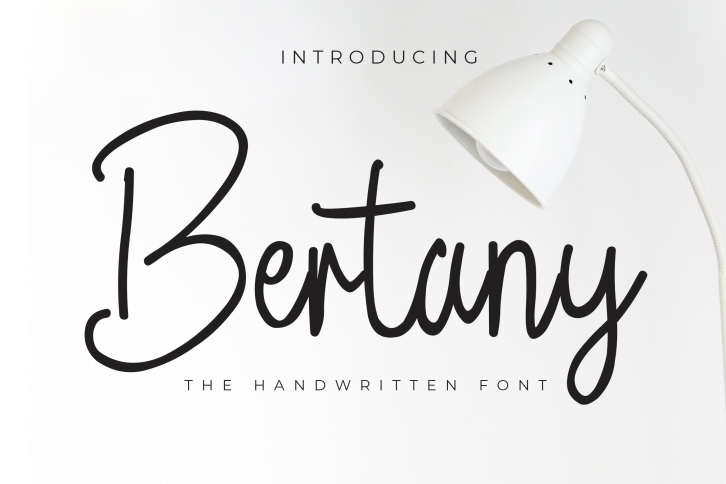
Bertany is a sweet and cursive handwritten font. This gentle font will look gorgeous on a variety of design ideas. It will add a joyful and romantic touch to each of your projects!